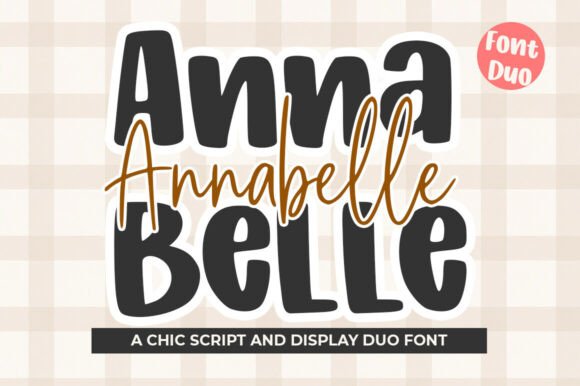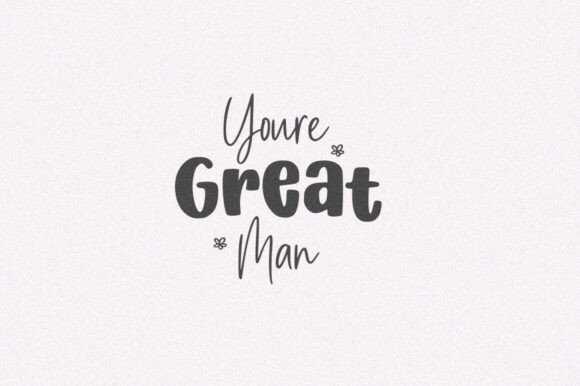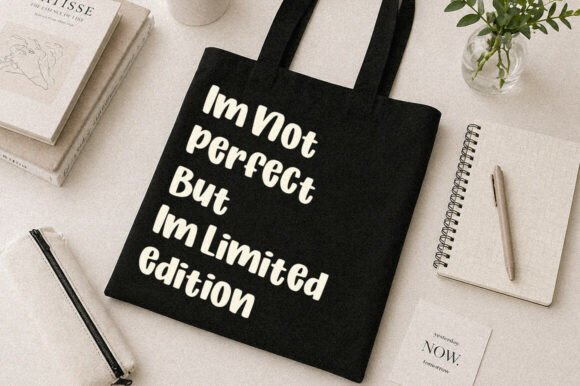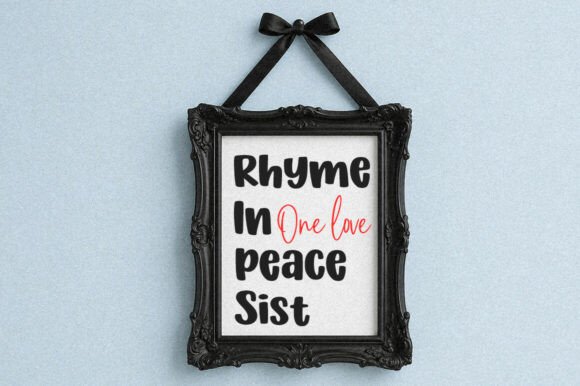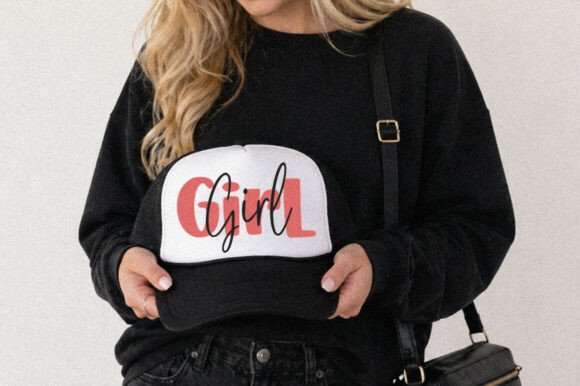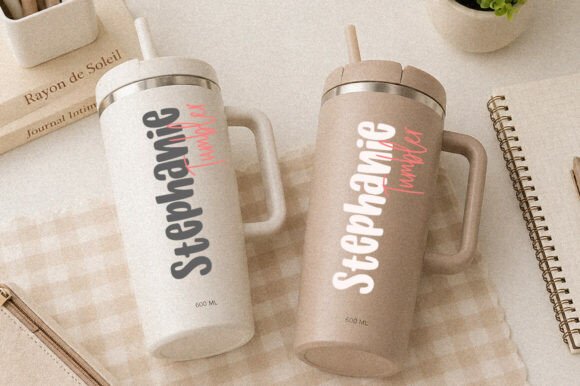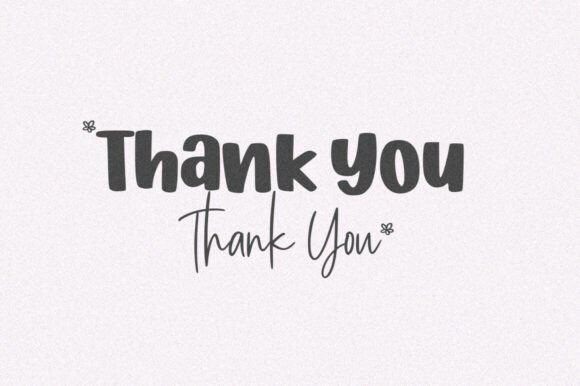
Annabelle Script Fonts
Unveiling Annabelle: a masterful typographic dialogue where structural power meets fluid grace. This cohesive family bridges the gap between a commanding, hand-tooled display face and a soulful, gestural script, capturing the raw energy of a designer’s ink-stained sketchbook.
The display component serves as a bold, contemporary anchor with its confident and tactile letterforms. In contrast, the script moves with a rhythmic, liquid elegance, echoing the effortless cadence of a fine-tipped brush. This curated duality allows for a seamless interplay of textures, offering a sophisticated balance between architectural impact and organic warmth.
Designed for projects that demand a bespoke, human touch, Annabelle is a versatile powerhouse for high-end visual identities. It is the ideal choice for evocative branding, artisanal packaging, and cinematic social media layouts, bringing a visceral sense of craftsmanship and intimacy to every creative canvas.